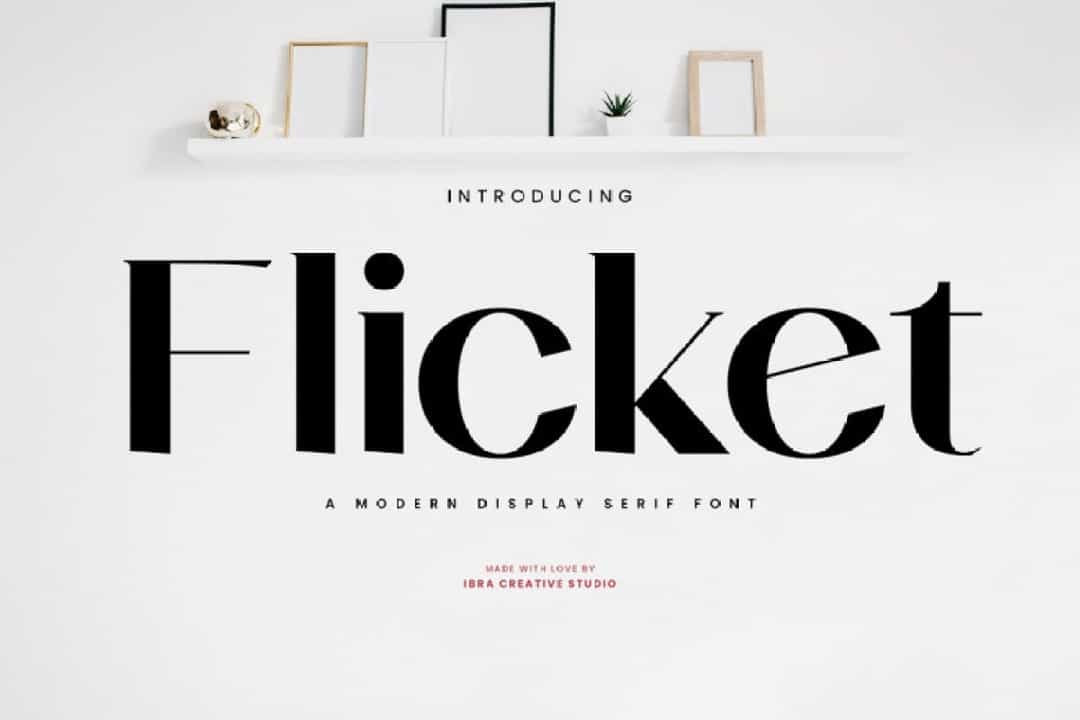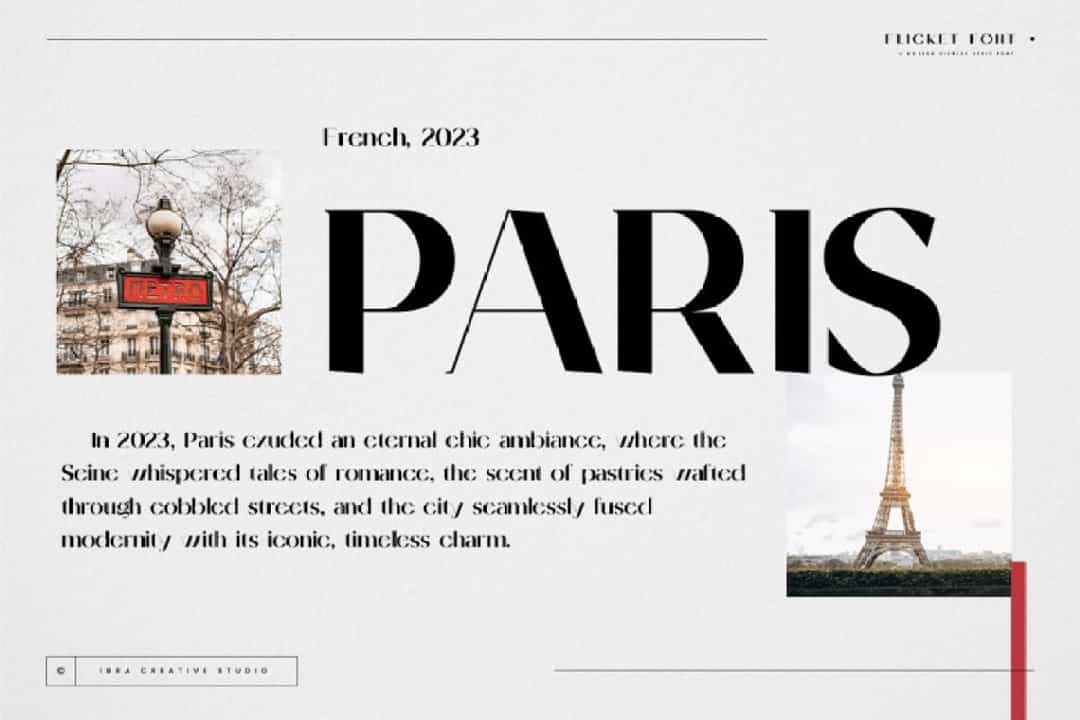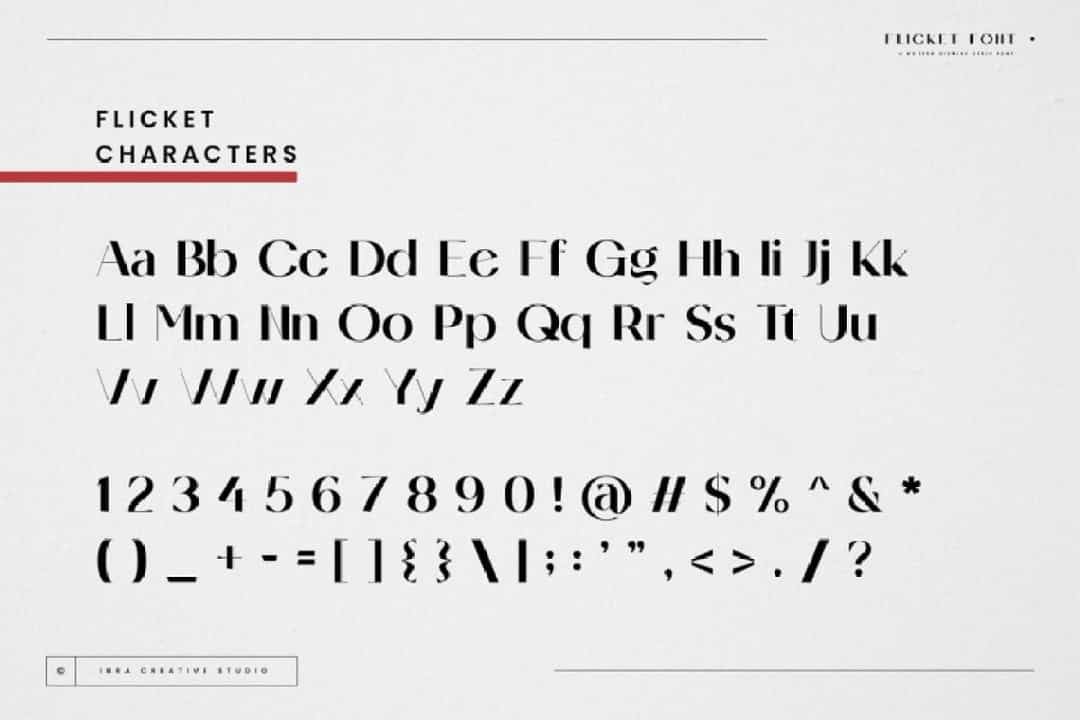
Flicket is a modern display serif font that effortlessly marries sophistication with playfulness, making it the ideal choice for contemporary designs. Boasting clean lines and delicate accents, Flicket exudes timeless style while remaining easily legible.